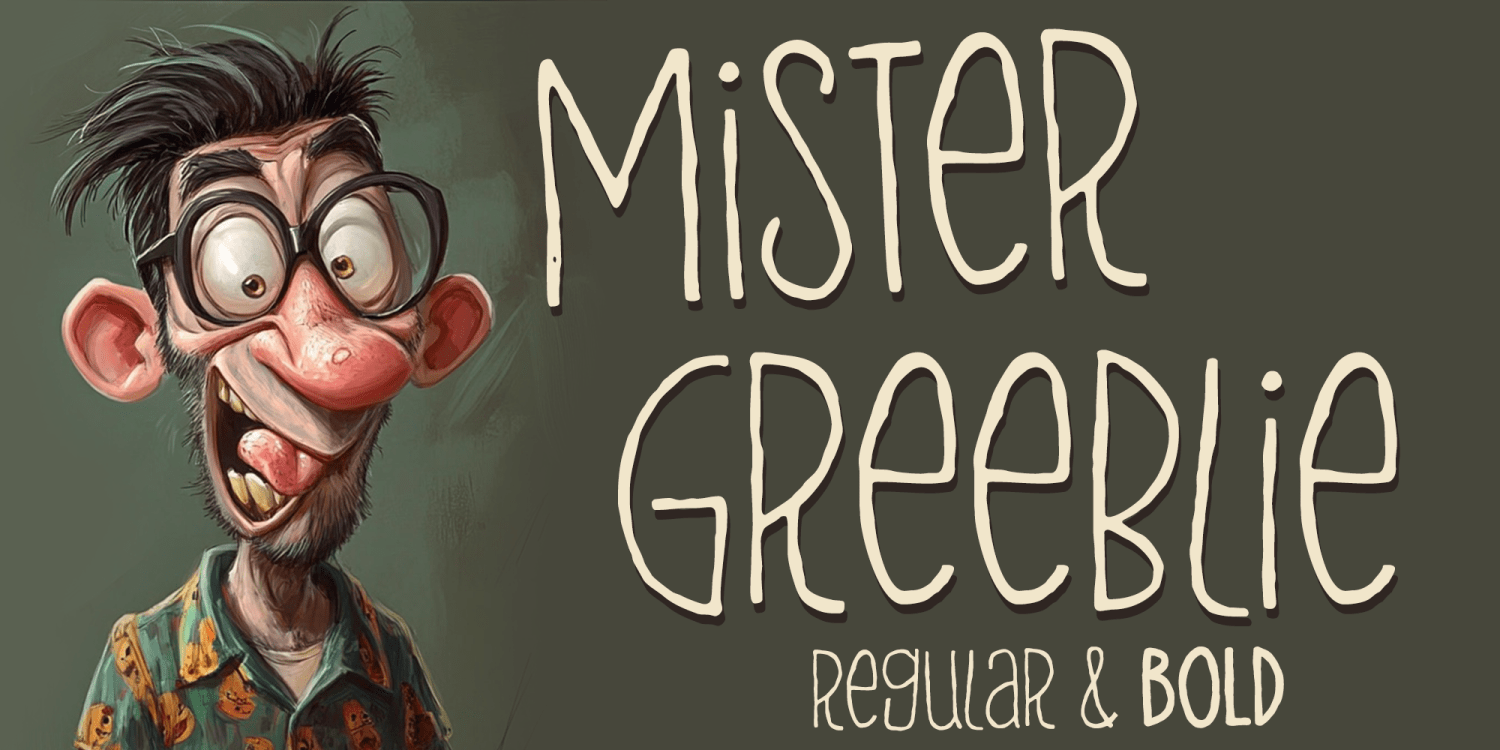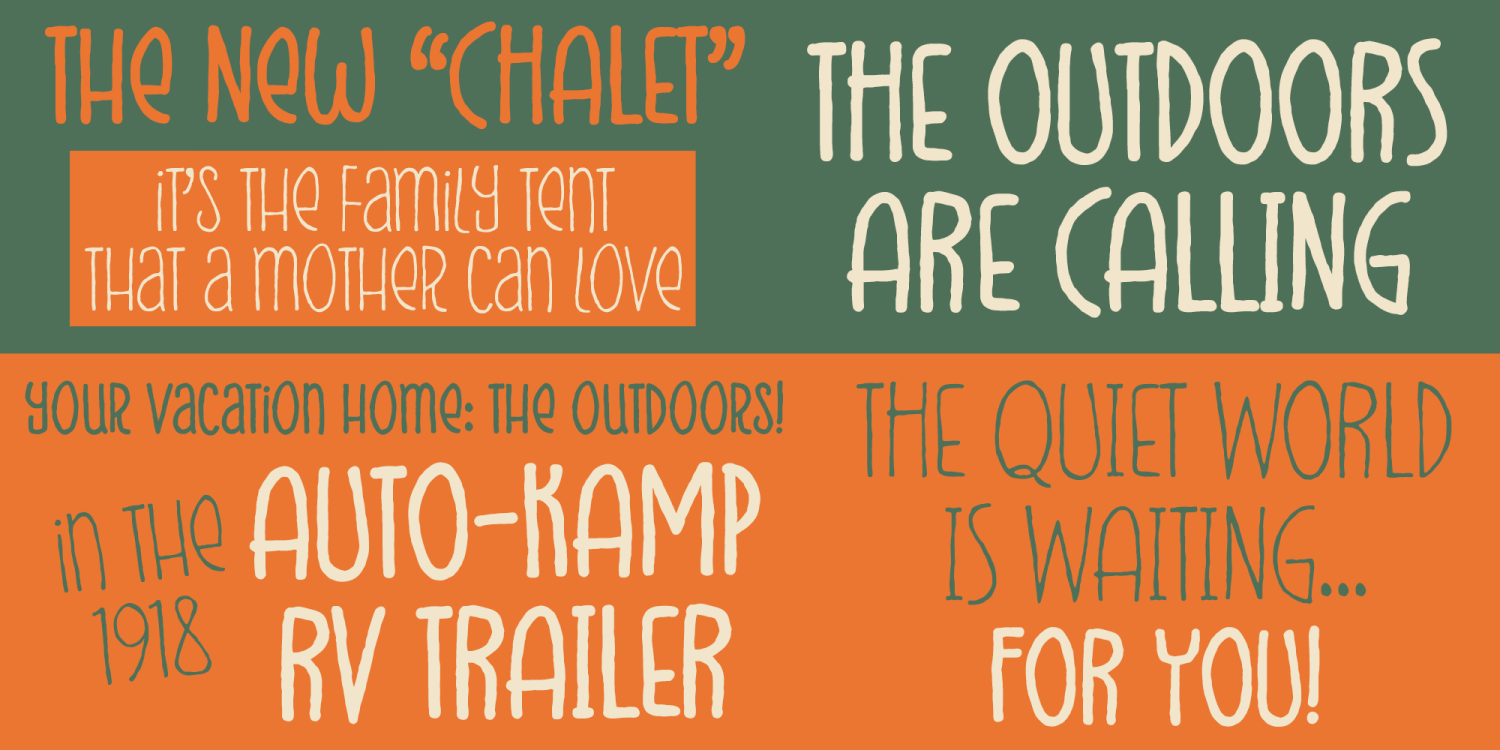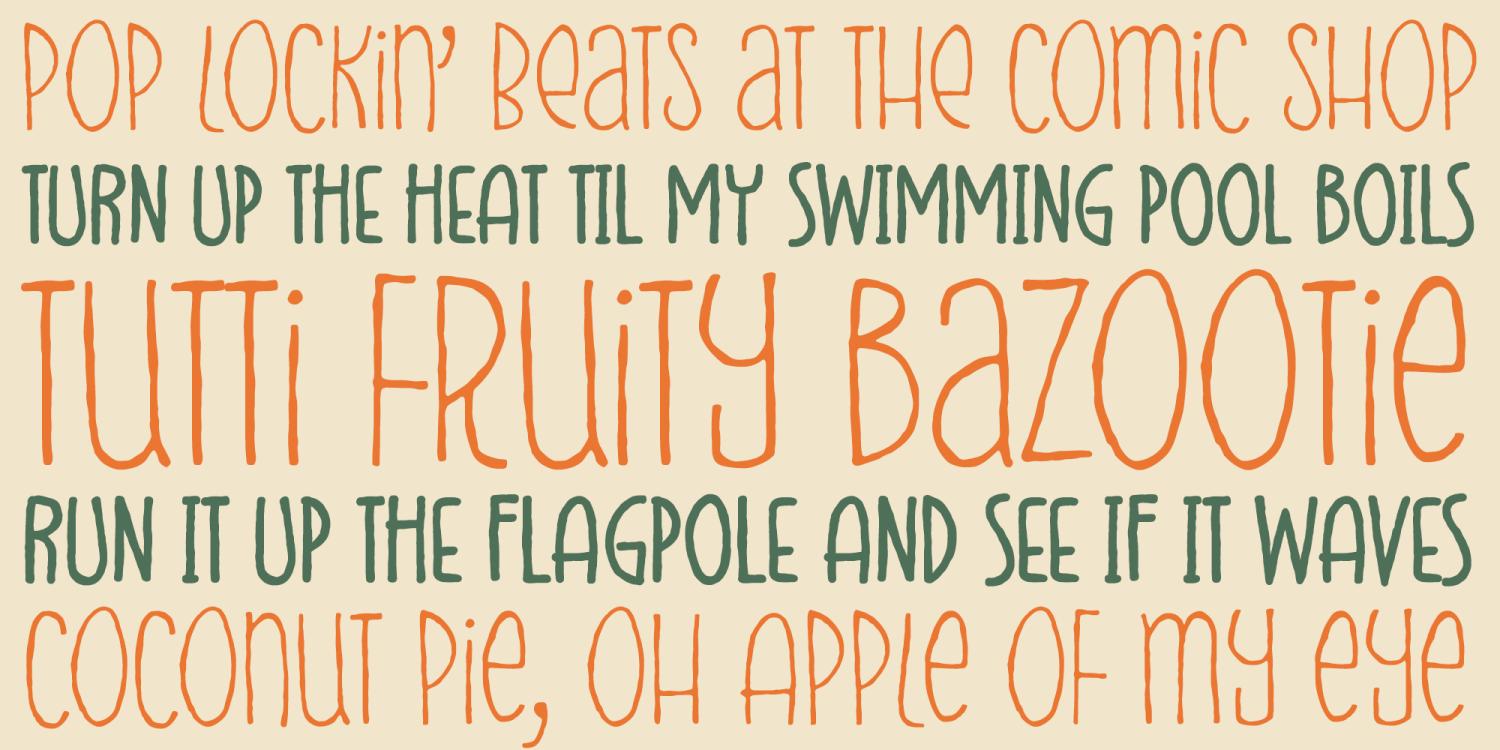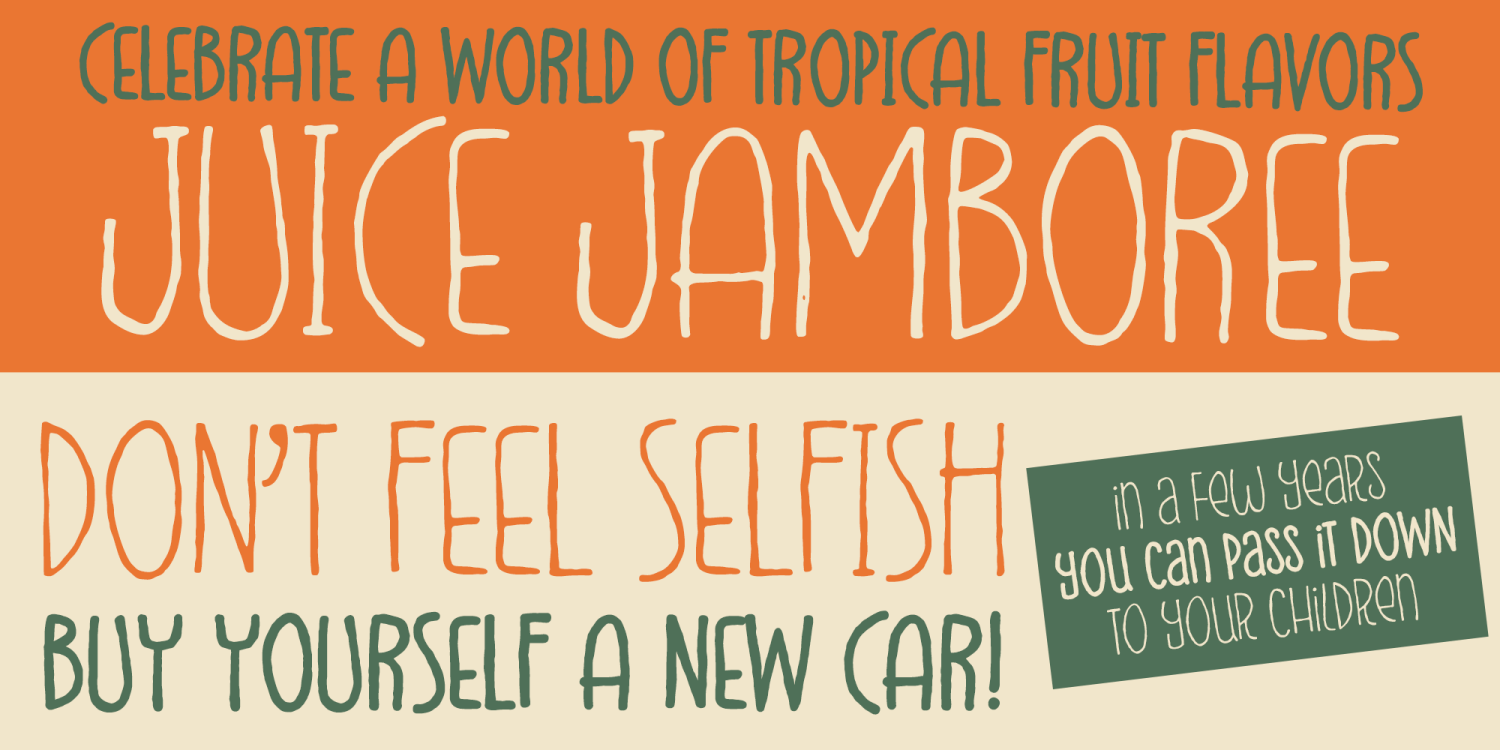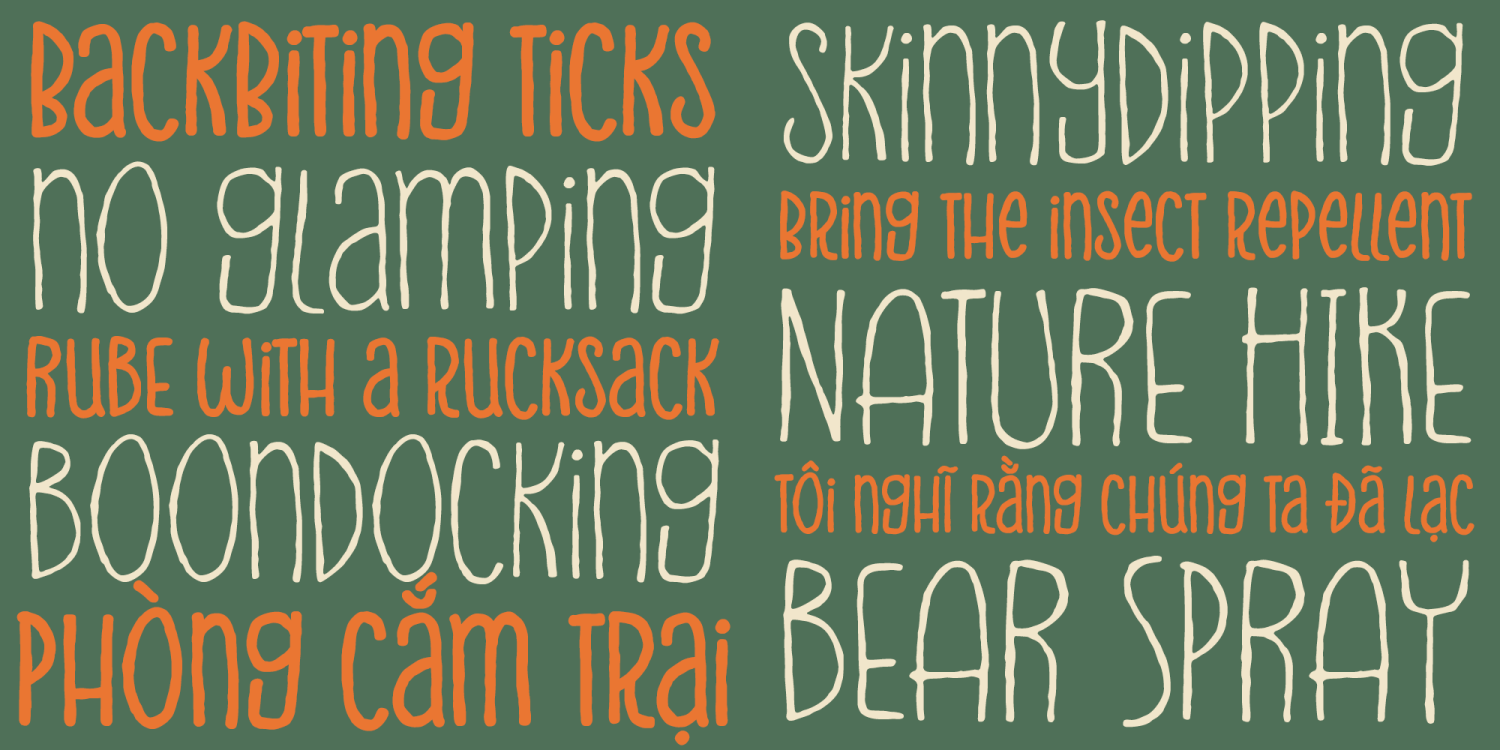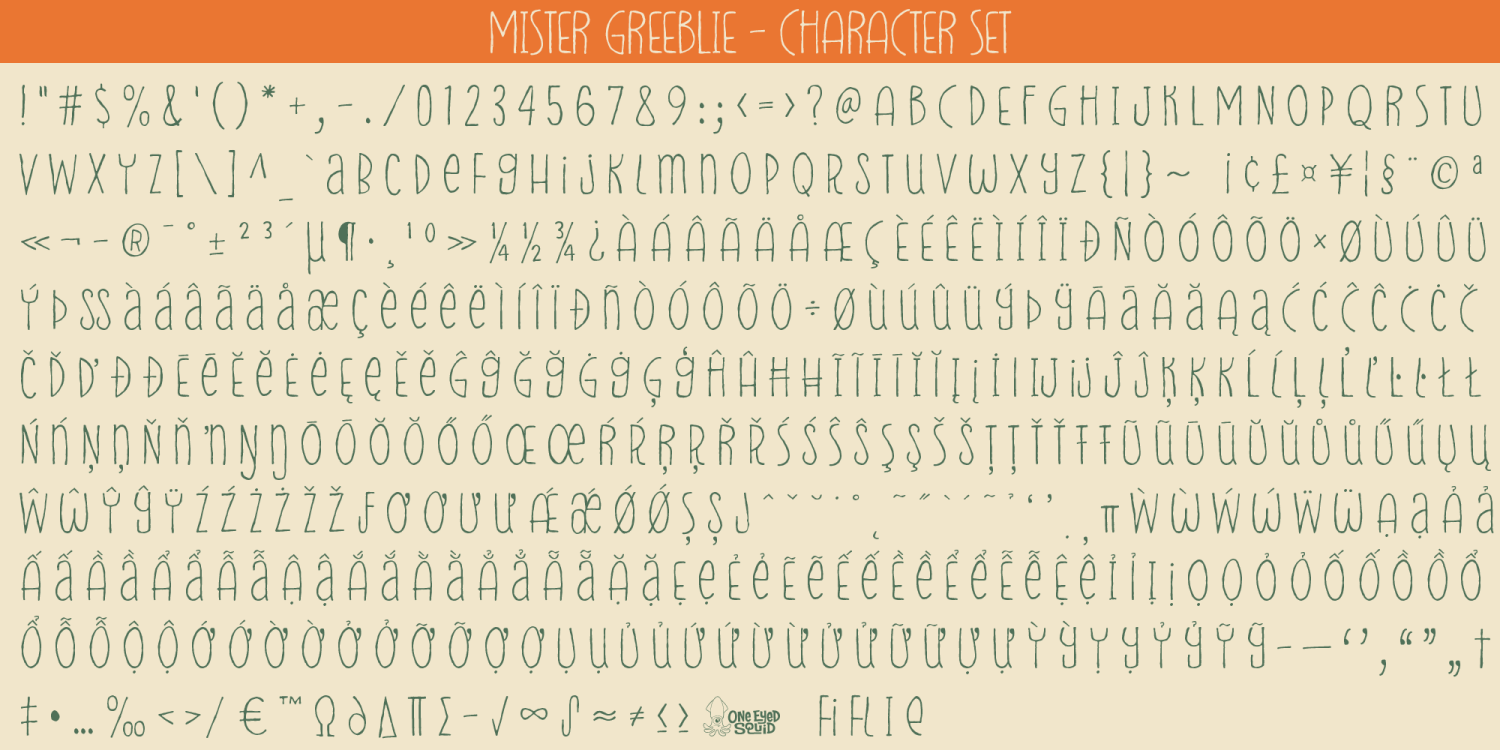
Mister Greeblie
Mister Greeblie is a wobbly, wacky display font with a weirdly wonderful personality and a grungy retro groove. Its offbeat letterforms bring playful movement, quirky character, and a slightly roughened feel to designs that want to stand out with fun, expressive style. Available in Regular and Bold weights, Mister Greeblie works well for headlines, posters, branding, packaging, greeting cards, social media graphics, and other creative projects that call for a lively, unconventional typographic voice. Includes extended Latin language support, including Vietnamese.